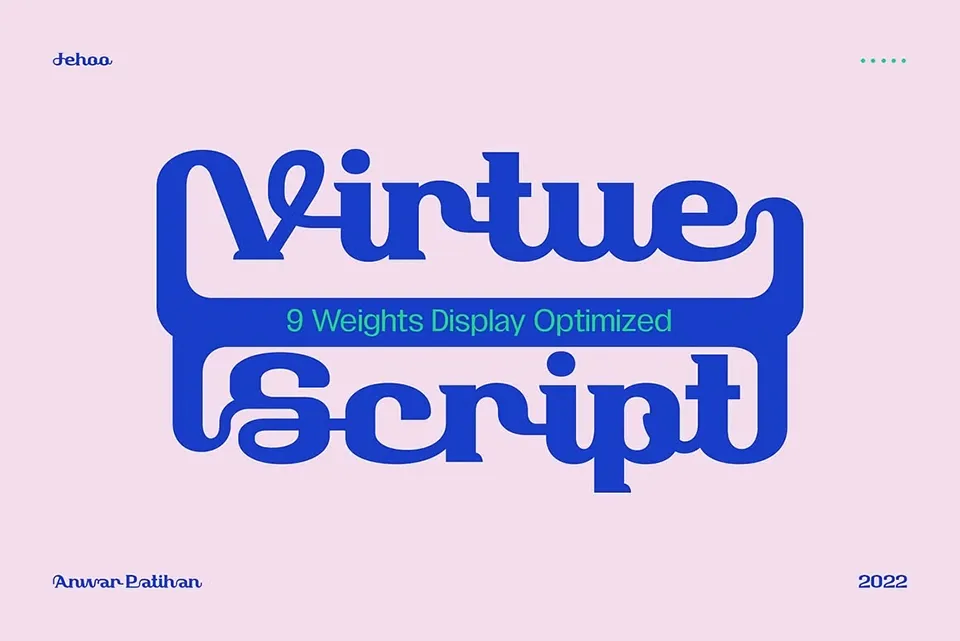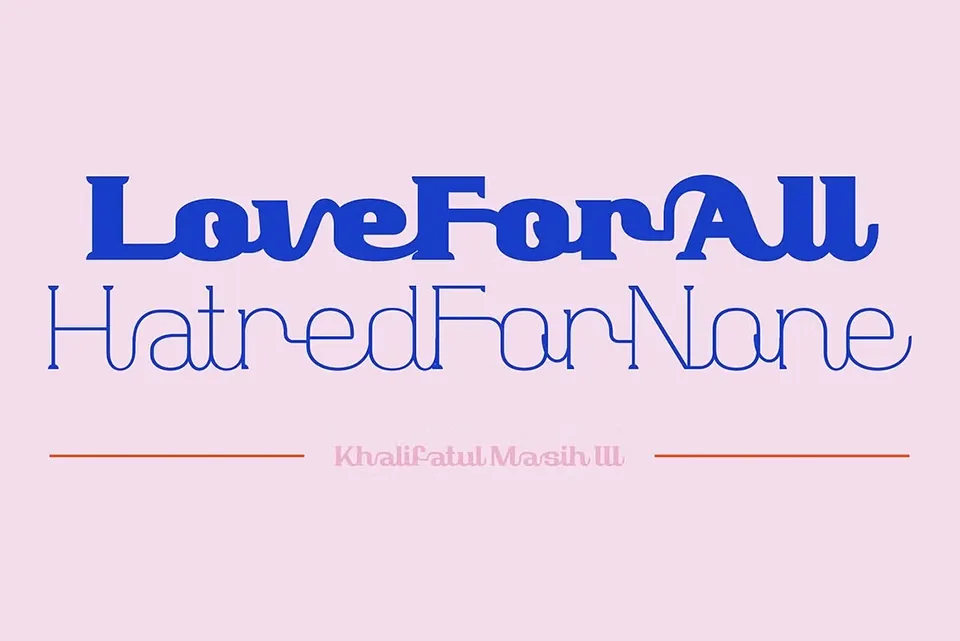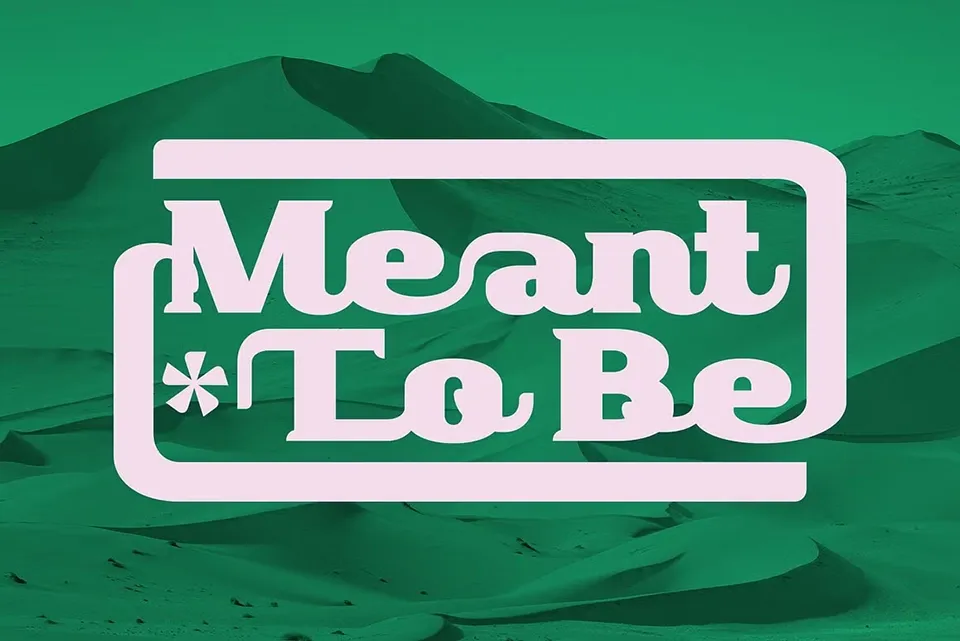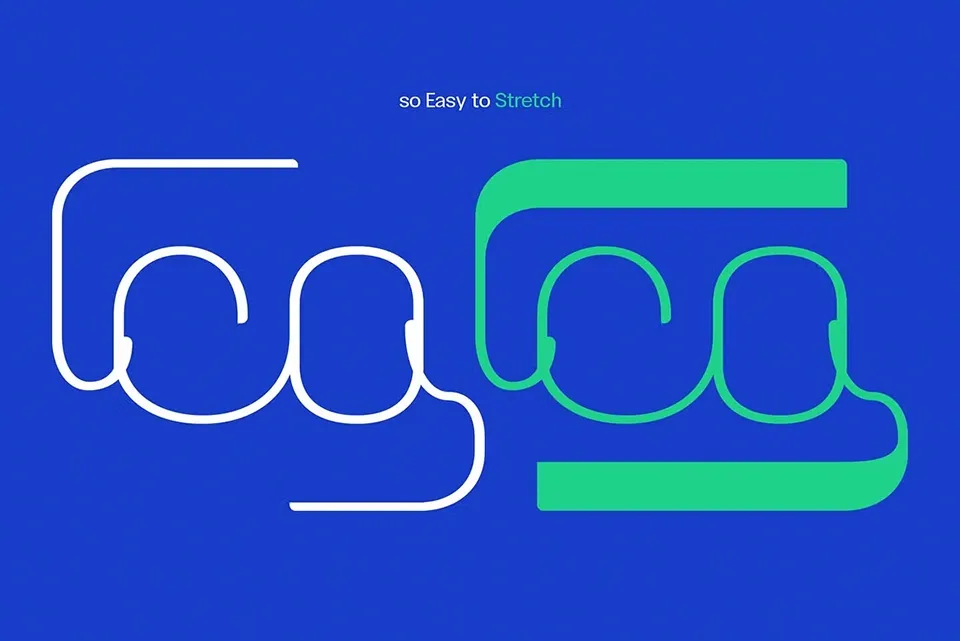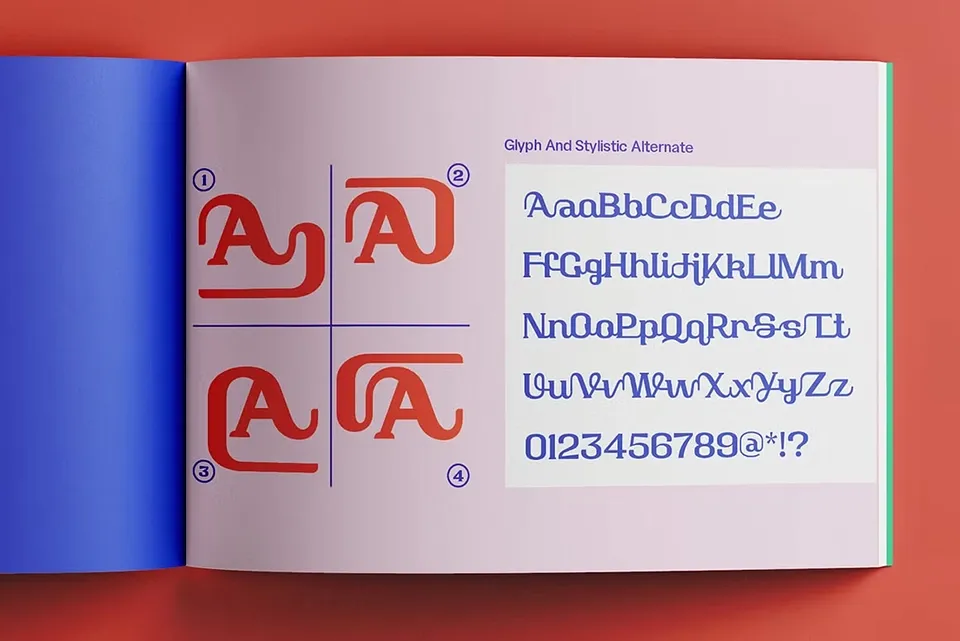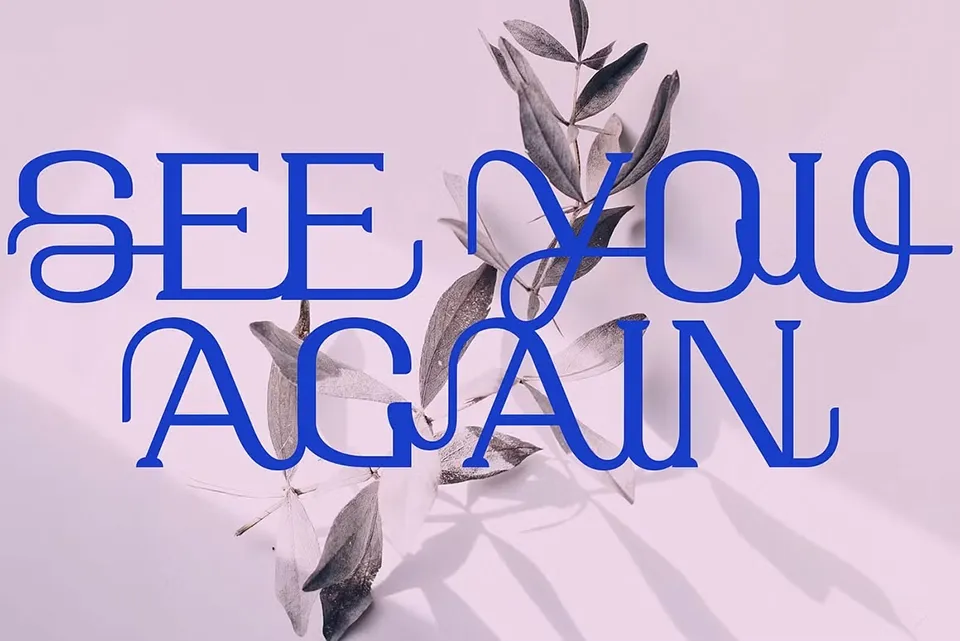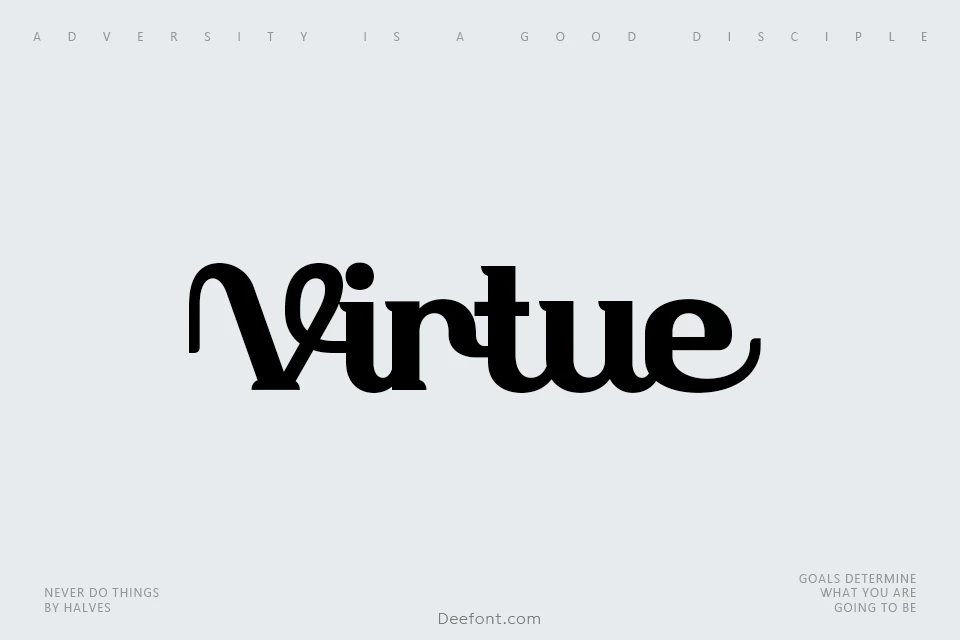
Virtue Font
Virtue Font is a modern script typeface designed to make your designs attractive and striking. With a serif foundation, this script font stands out from typical scripts, offering a unique blend of elegance and boldness. It features 9 weights from Thin to Black, and each letter includes 4 beautiful stylistic alternates, allowing for creative and versatile typography. The letters connect smoothly and are constructed with simple nodes for easy customization, making Virtue Script perfect for display, branding, and creative projects.